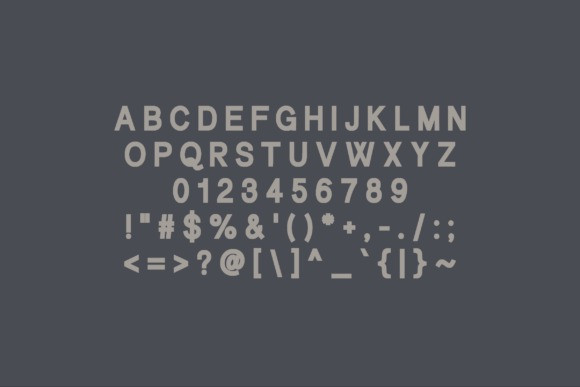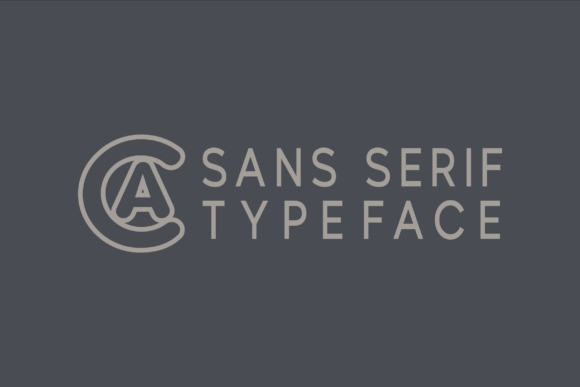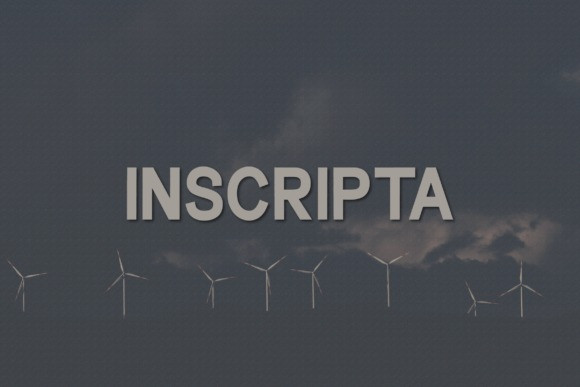
Inscripta Font
Inscripta Font a modern, classy sans serif typeface. A sans serif typeface that contains upper characters, number 0-9 and a range of punctuation and symbols. An extremely versatile font, perfect for logos, weddings, invitations, quotes, advertisements, print, magazines, and more!